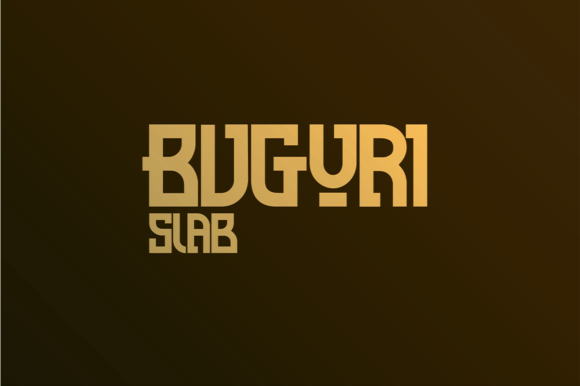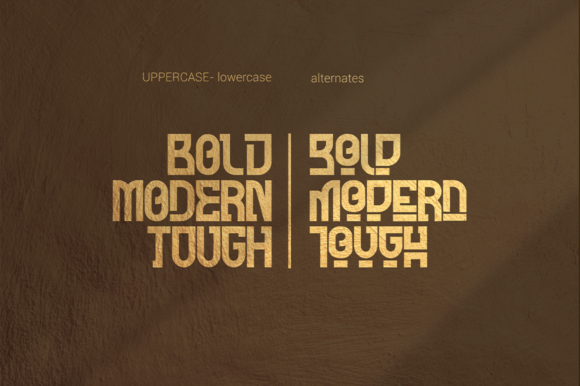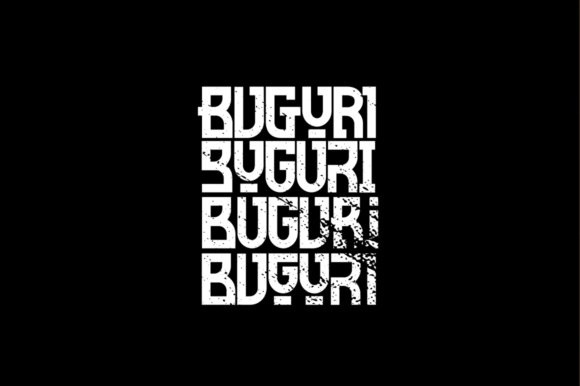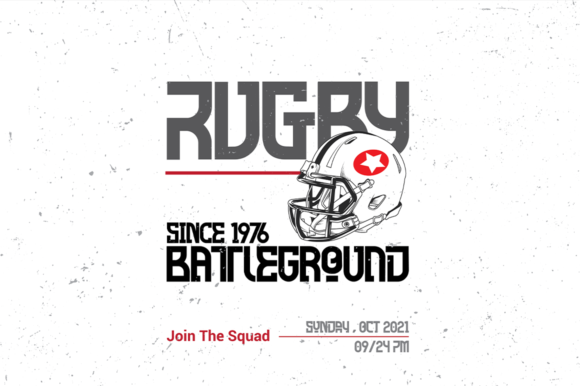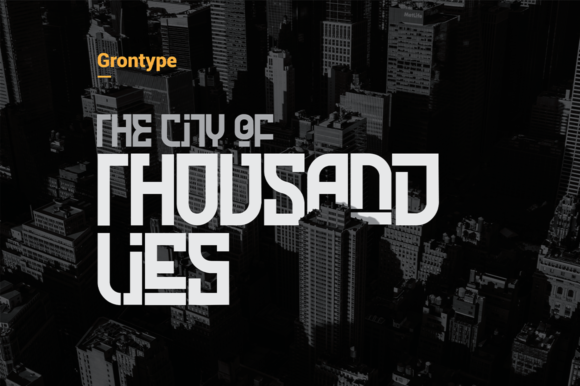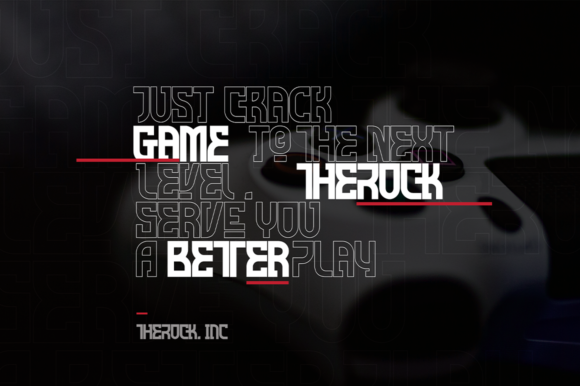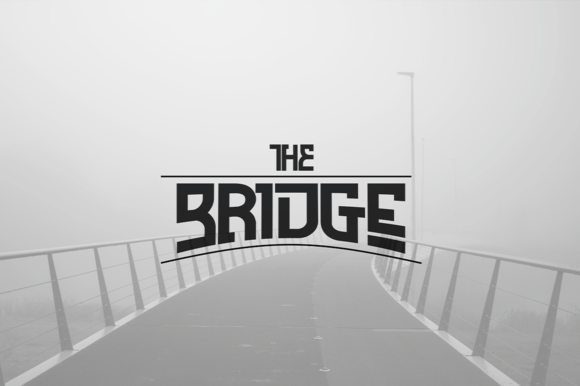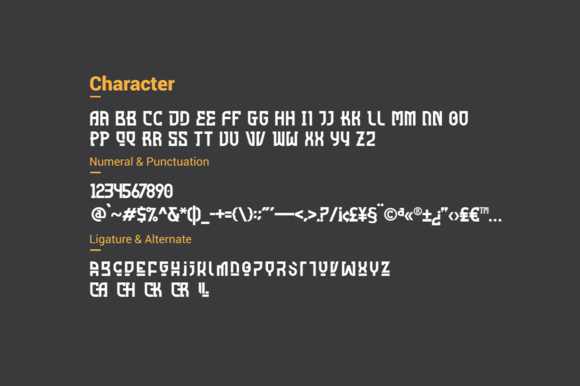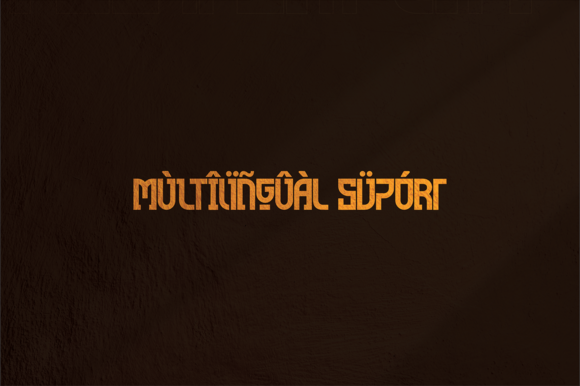
Buguri
Buguri: A Bold and Assertive Slab Serif Font
Buguri is a distinctive slab serif font that combines boldness with assertiveness. This typeface offers designers a powerful tool for creating impactful typography across a wide range of creative projects.
Key Features of Buguri
• Bold Design: Features a strong, eye-catching appearance that commands attention
• Assertive Character: Incorporates confident and forceful elements for maximum impact
• Slab Serif Structure: Maintains the characteristic thick, rectangular serifs typical of slab serif fonts
• Original Look: Offers a unique and distinctive appearance
• Versatile Application: Suitable for a wide range of crafty ideas
• Futuristic Aesthetic: Incorporates modern and eccentric elements[2]
Font Details
Additional features of Buguri include[2]:
• Unique shapes and sharp edges
• Alternate letters for added versatility
• Includes glyphs and alternates
Ideal Uses for Buguri
Buguri’s unique characteristics make it particularly well-suited for:
• Letterheads and titles
• Stationery design
• Modern and eccentric design projects[2]
• Branding and logo creation
• Poster and advertisement layouts
When incorporating Buguri into your designs, consider the following tips:
• Use for headlines or short blocks of text to maximize its bold impact
• Experiment with the alternate letters to create unique and futuristic looks[2]
• Take advantage of its assertive nature in projects where you want to convey strength and confidence
Buguri is an excellent choice for designers looking to add a bold and assertive slab serif to their typographic toolkit. Its original look and versatility make it stand out in the world of typography. Whether you’re working on logo designs, creating layouts for stationery, or developing branding for various projects, Buguri offers the perfect blend of boldness and uniqueness.